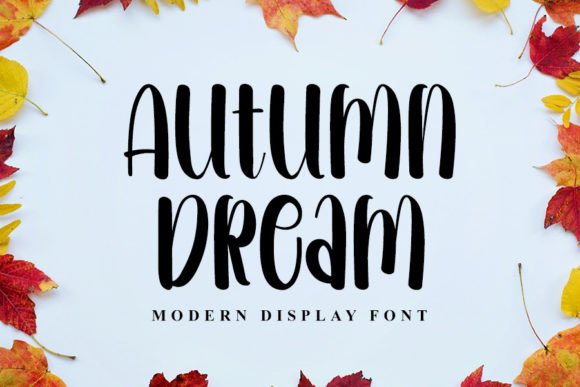
I still remember the countless hours I spent searching for the perfect font for a client’s wedding invitation project. The design brief called for something elegant, classy, and timeless. I scoured the internet, tried out dozens of fonts, but nothing seemed quite right. That was until I stumbled upon Autumn Dreams, a trendy handwritten font that instantly caught my attention.
With its contemporary atmosphere and impeccable form, Autumn Dreams seemed to tick all the boxes. Inspired by timeless classic calligraphy, this font promised to add a touch of sophistication to any design project. In this article, I’ll share my experience with Autumn Dreams, its features, and how to make the most of it in your designs.
What I Love About Autumn Dreams ✨
- 💫 Elegant and classy vibe, perfect for high-end designs
- ✅ Impeccable form and attention to detail
- 🎨 Highly versatile, suitable for various design projects, from invitations to branding
- 👍 Excellent for digital and print designs
- 🤔 Limited availability of stylistic alternates, which might limit creative freedom
- ⚠️ Some users might find the font a bit too refined or formal for certain projects
- Experiment with OpenType features, such as ligatures and stylistic alternates, to add more flair to your design.
Autumn Dreams was inspired by the timeless beauty of classic calligraphy. The font’s creator aimed to capture the essence of traditional calligraphy and infuse it with a modern twist. The result is a font that exudes elegance and sophistication, perfect for designers seeking to add a touch of refinement to their projects.
Q: What type of projects is Autumn Dreams best suited for?
A: Autumn Dreams is highly versatile and suitable for various design projects, including invitations, branding, posters, and more.
Q: Does Autumn Dreams support OpenType features?
A: Yes, Autumn Dreams supports OpenType features, including ligatures and stylistic alternates.